I am using chrome browser, and i am a guy who never used mac before, i switched from ubuntu to os x. Now the fonts look too bold for me comparatively to windows 7/ ubuntu 12.04. For comparison sake, here is the image, the above shows the fonts under os x using chrome browser and beneath those shows the ones in windows 7. enter image description here
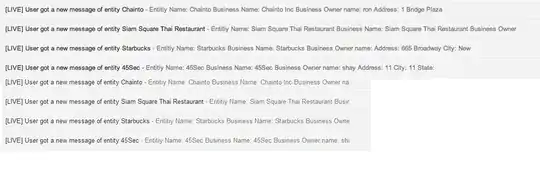
Are these normal or is there any issues with my setup? I am using mac mini; which i upgraded from Lion to Mountain lion. I connect it with Samsung 23 inches 1080p LED monitor. Please help. Thanks in advance.
• In general to "answer" your question: this is and was always the same with Mac OS and other OS like Windows and Linux derivates and it is just based on your font settings. Apparently Apple implemented the settings so that the fonts appear much clearer and distinctive. Furthermore, I flagged your question but I do not have the rights to close this question. Only time will do so when more people flag this question, too. – Christian Ivicevic Sep 30 '12 at 19:00
• Text does normally look bolder on OS X, but there's a hidden preference for using a lighter text rendering style. See the question above. – Lri Oct 01 '12 at 16:57